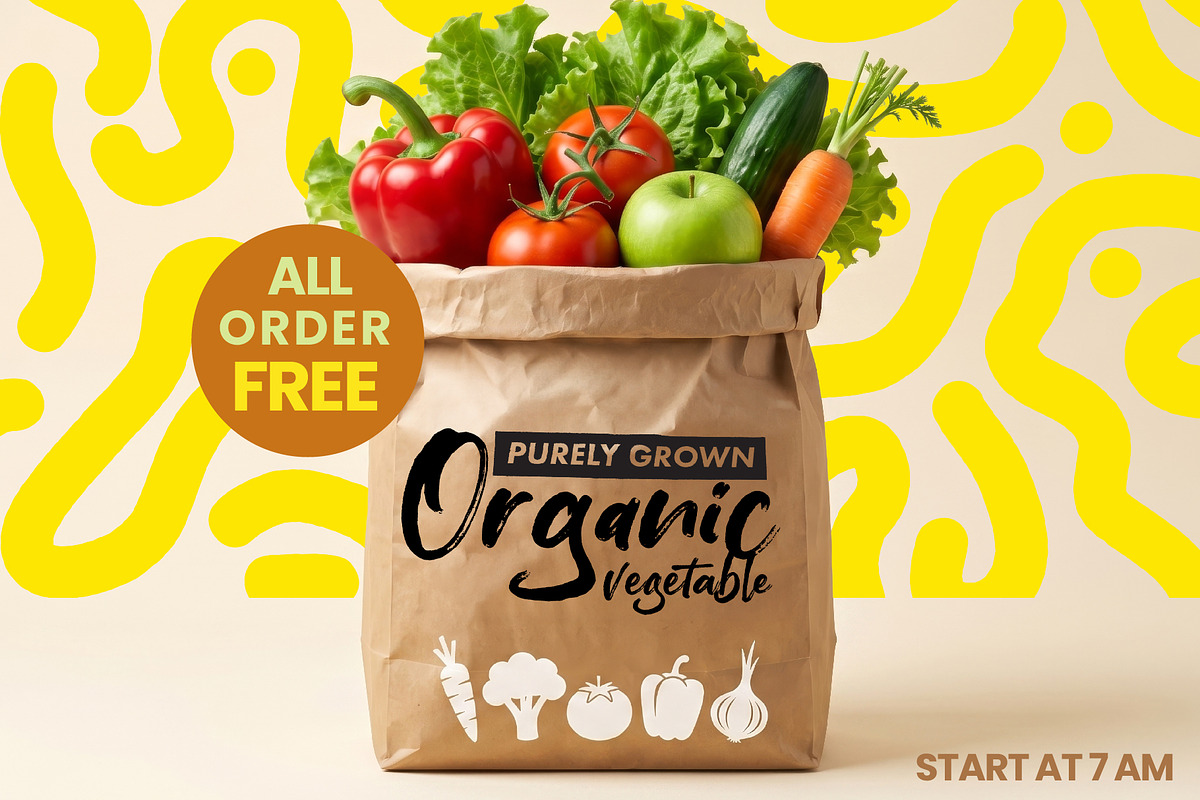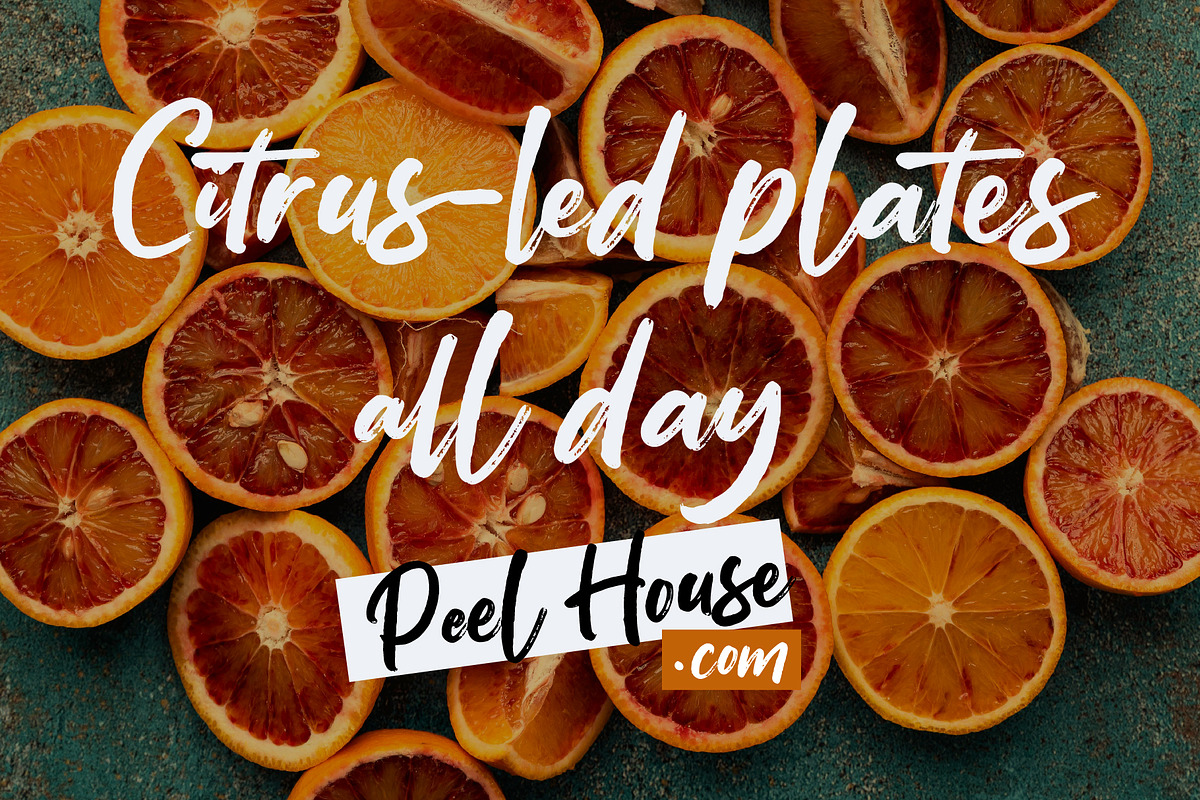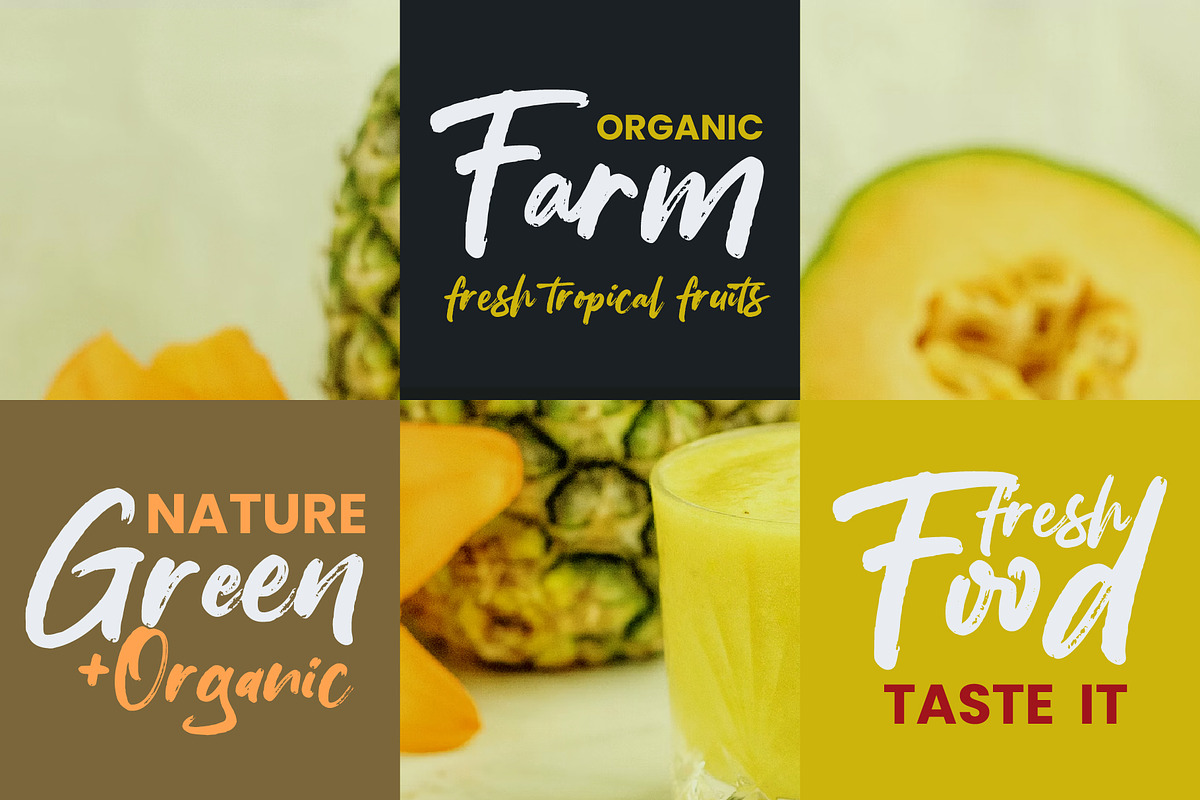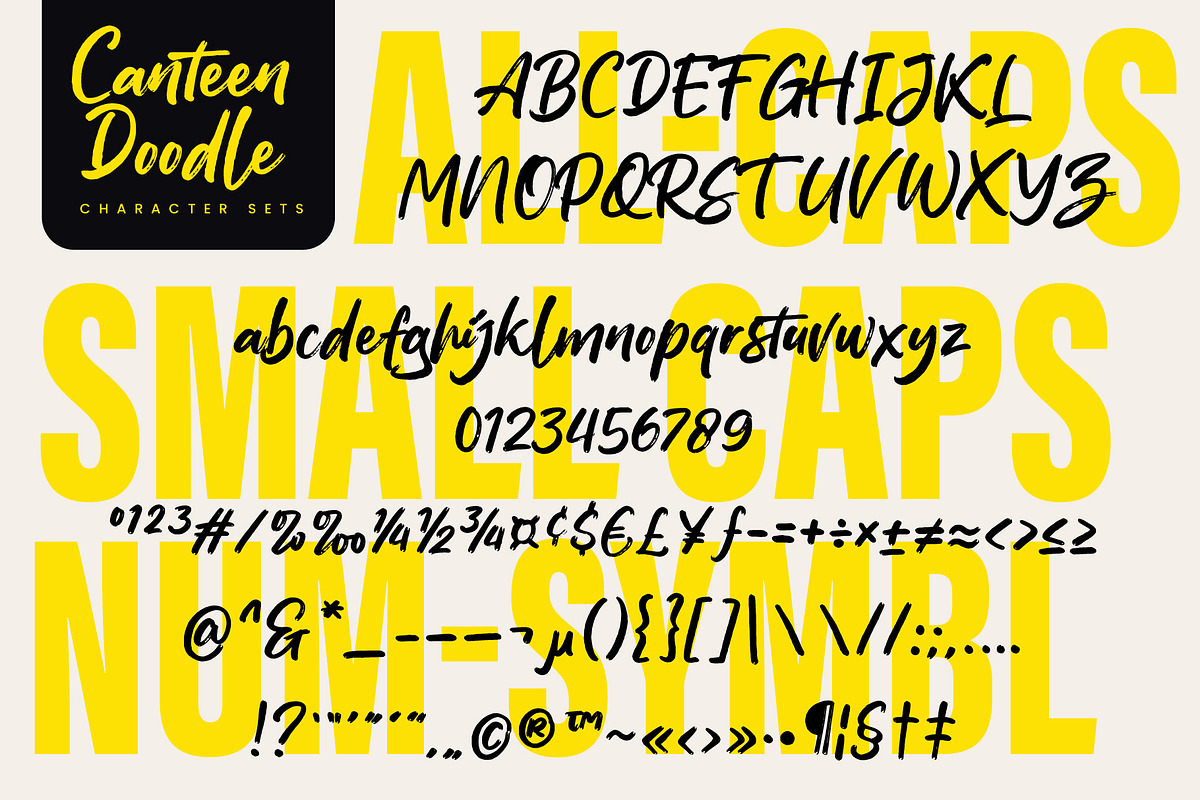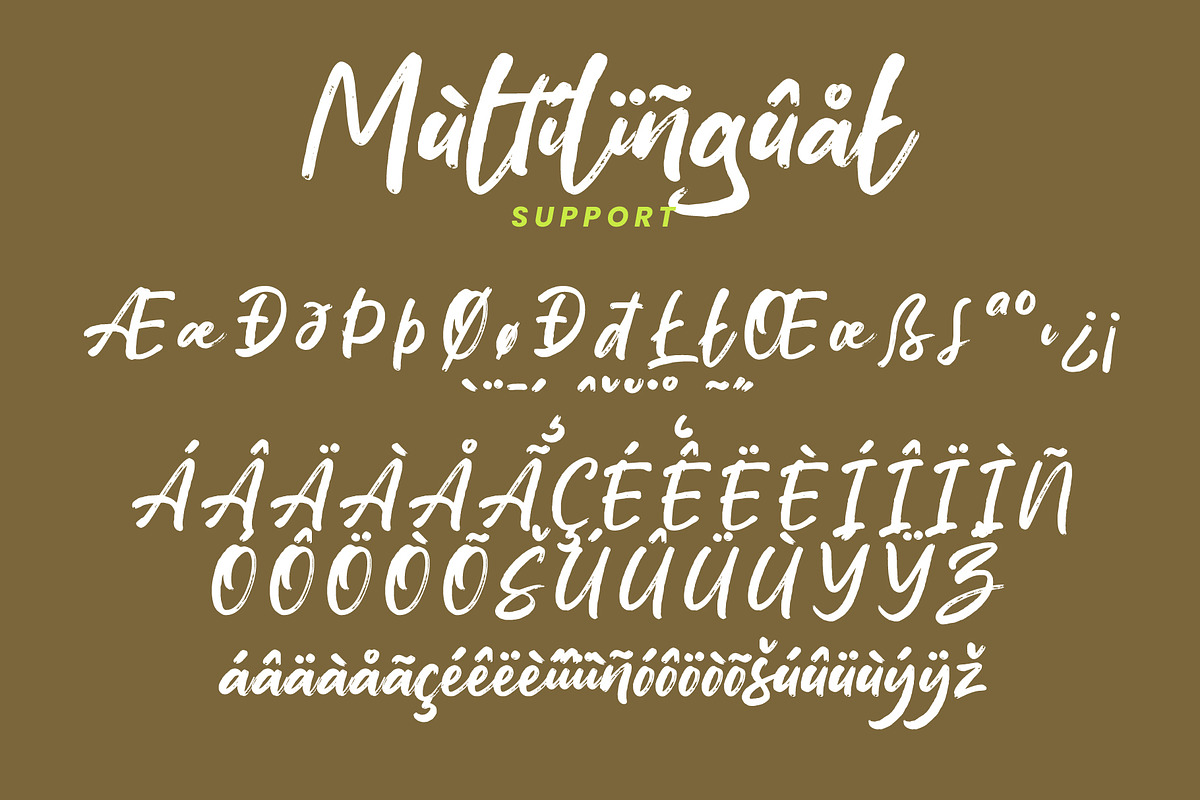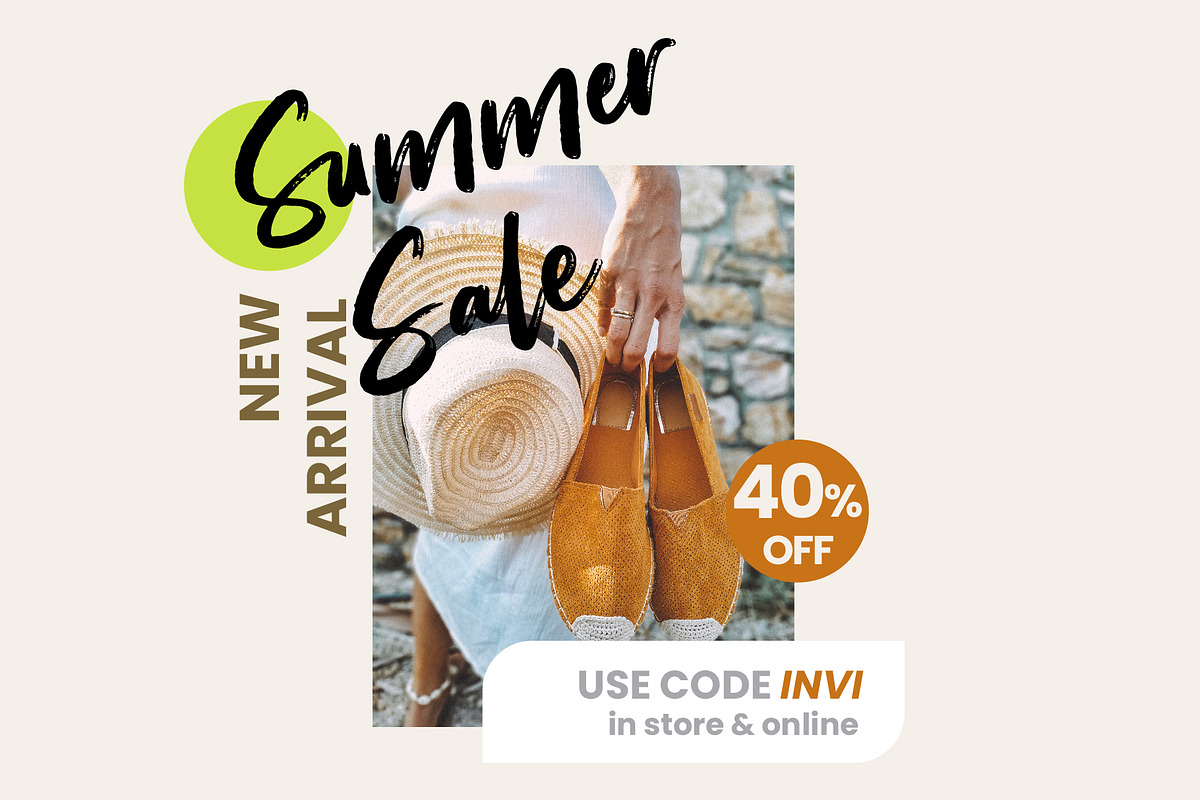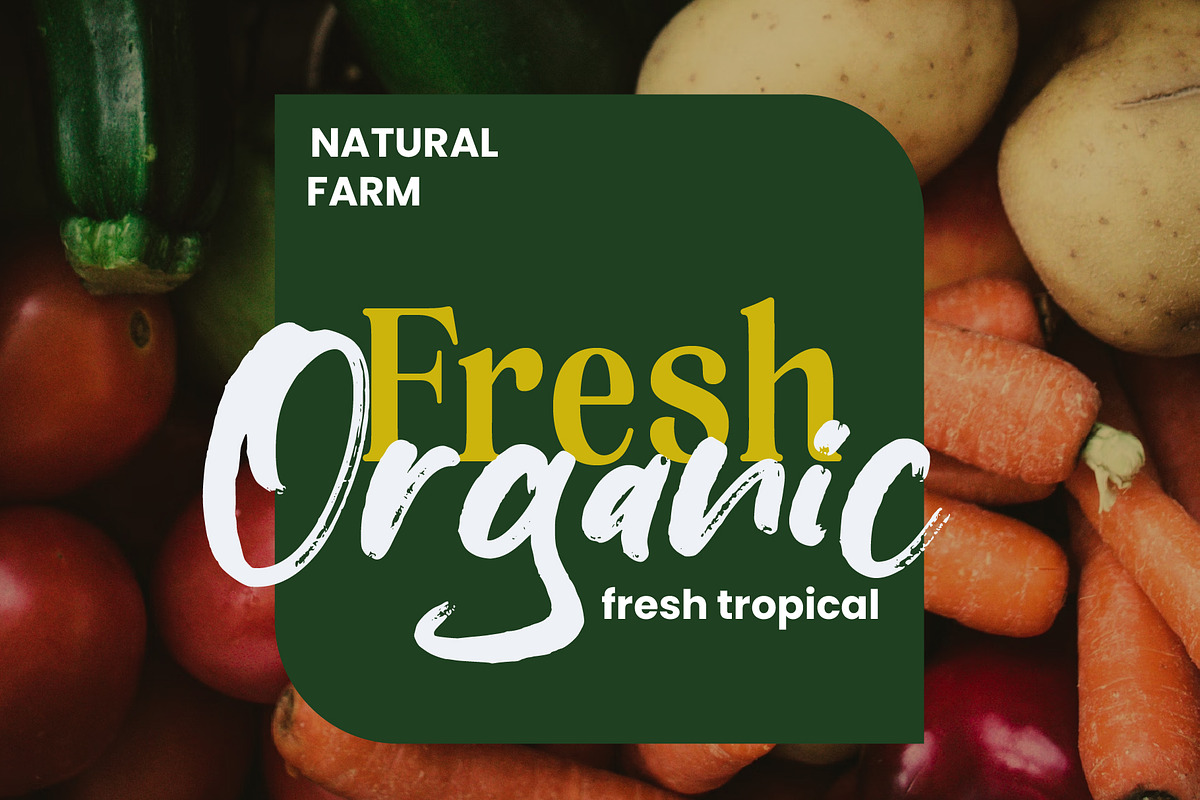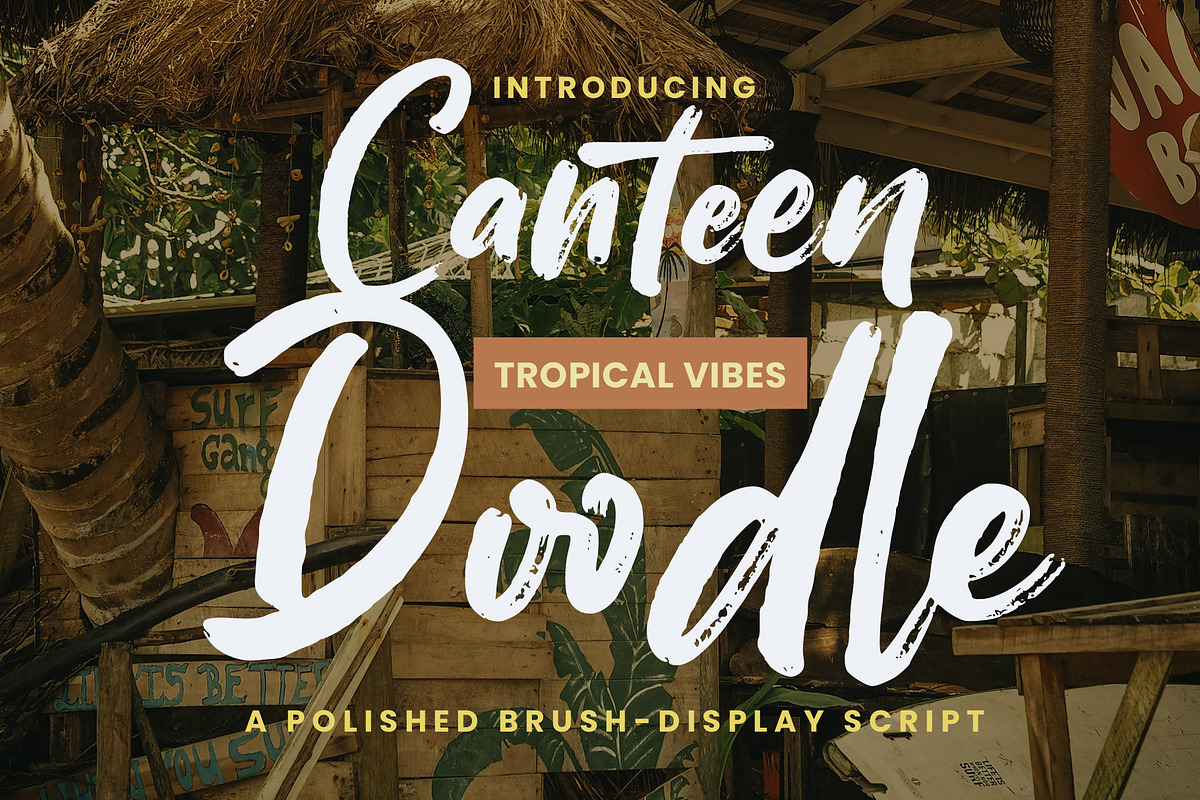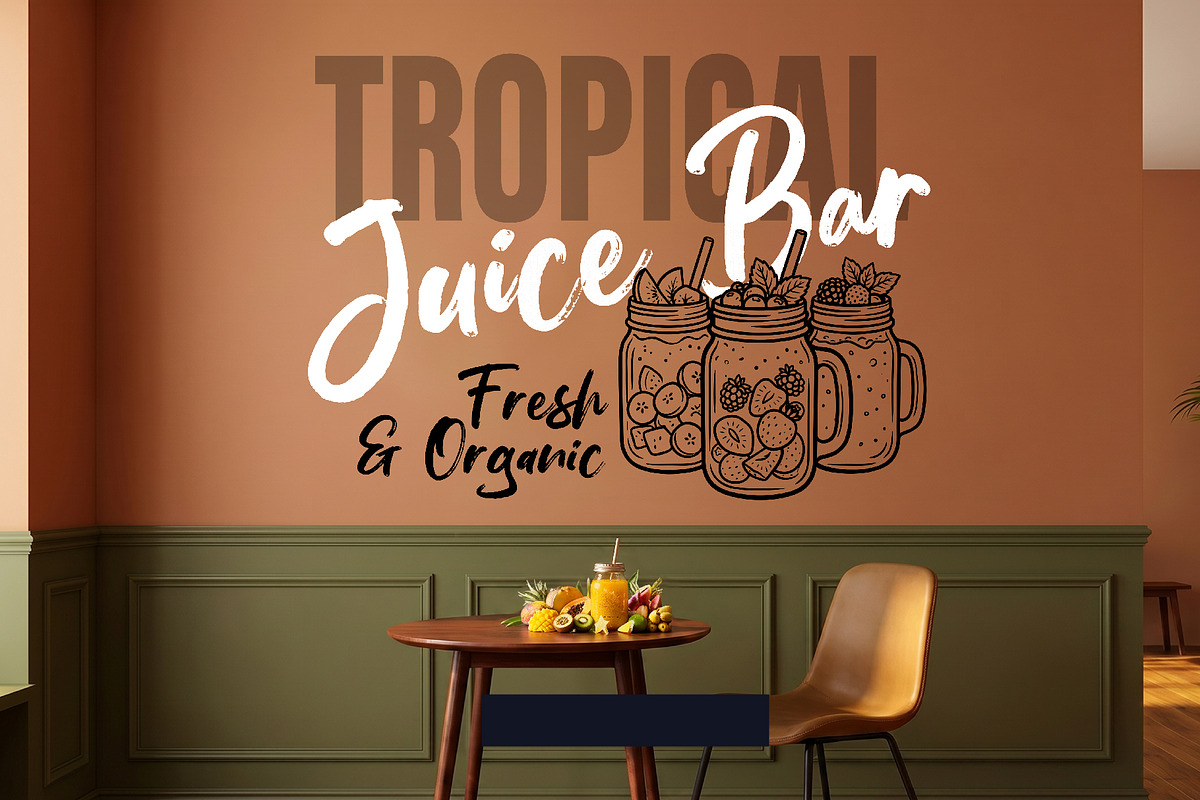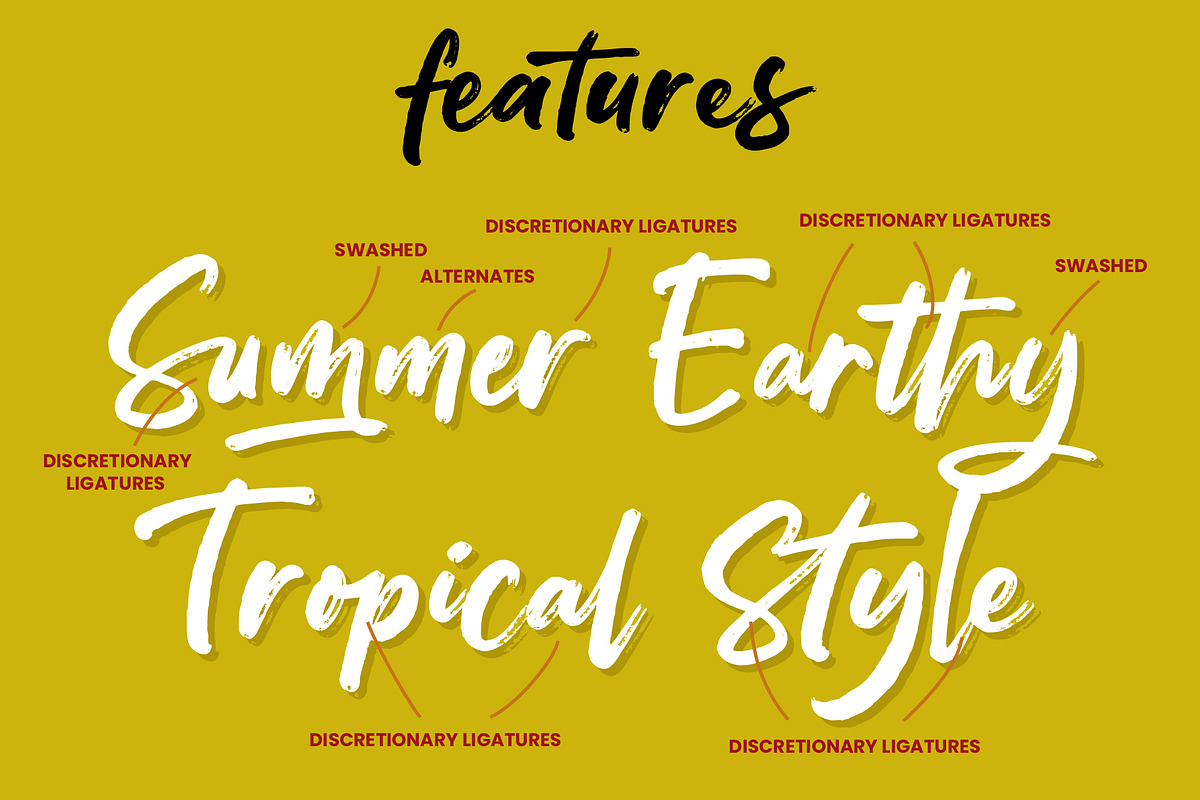
Canteen Doodle - Brush Display Font
Canteen Doodle is a polished brush-display script font infused with vibrant tropical vibes and an earthy, organic feel. Crafted for food branding, cafe menus, and fresh product packaging, it brings a lively, hand-painted aesthetic to every layout. Easily create eye-catching summer sales and wholesome brand identities in seconds.
Bring a fresh, wholesale, and organic personality to your designs with Canteen Doodle, a polished brush-display script font by Inviline Studio. Featuring dynamic hand-painted strokes and a lively tropical style, this typeface bridges the gap between casual charm and professional design presentation. It is carefully designed to evoke an earthy, small-batch feel, making it the perfect choice for artisanal brands, local markets, and tropical food packaging.
Advanced Discretionary Ligatures & Swashed Alternates
Polished Brush Script: Smooth paths designed for clean legibility and professional cutting/printing.
Earthy & Organic Vibe: Gives layouts an instant farm-fresh, natural feel.
Discretionary Ligatures & Swashes: Includes specialized character connections to customize your typography seamlessly.
Multilingual Character Set: Ready for worldwide commercial applications.
Ideal For / Use Cases
Food & Beverage Branding: Juice bars, organic farms, coffee shops, and restaurant signage.
Menu Designs & Signage: Citrus-led plates, cafe drink menus, and daily special boards.
Product Packaging: Small-batch goods, fresh fruit labels, and eco-friendly cosmetics.
Retail Marketing: Summer sales, new arrivals banners, and lifestyle social media templates.